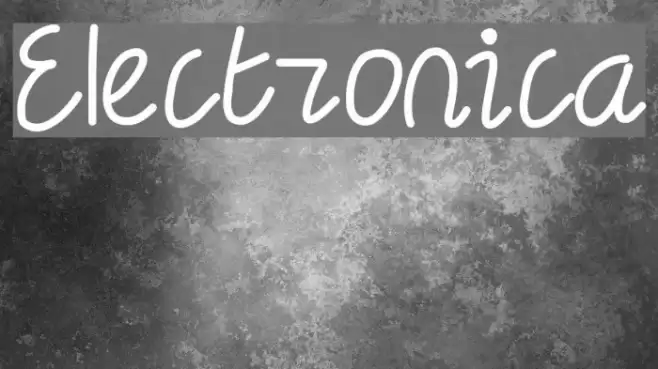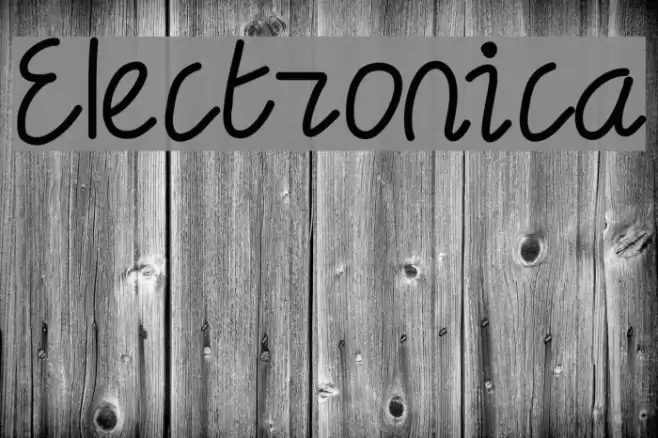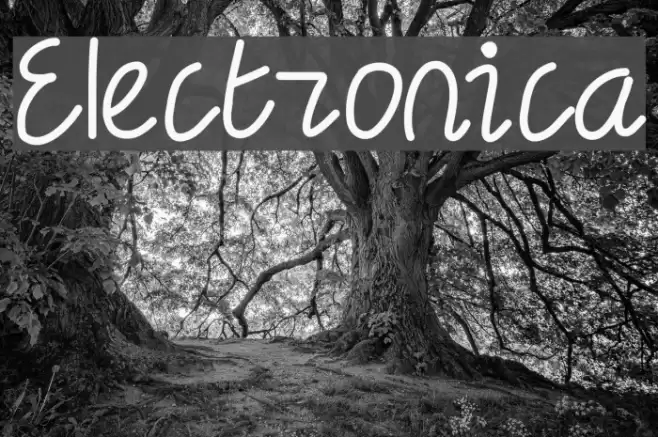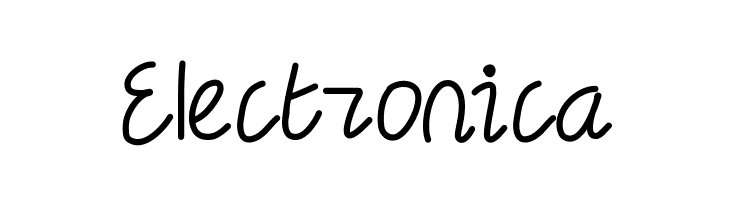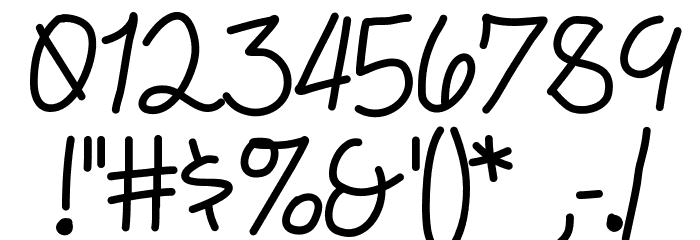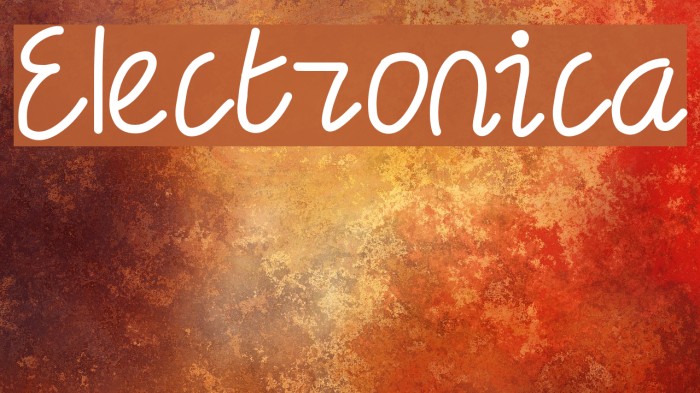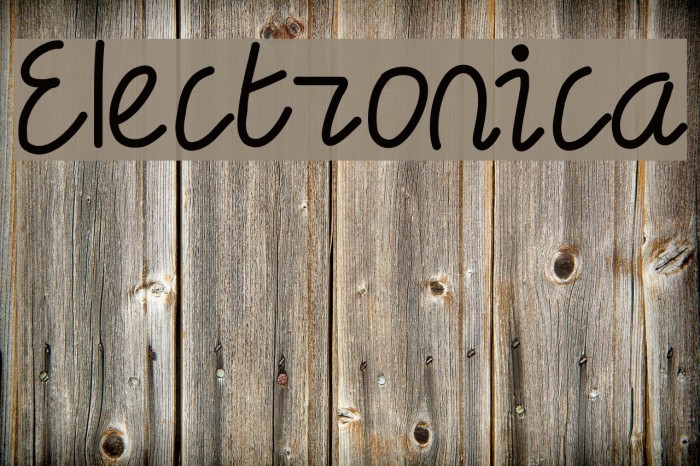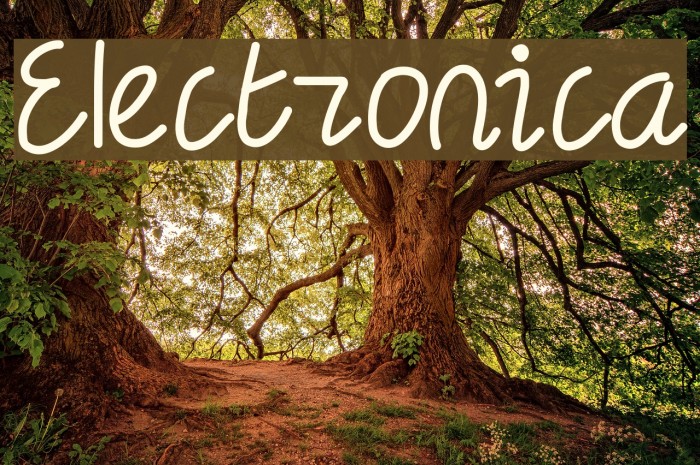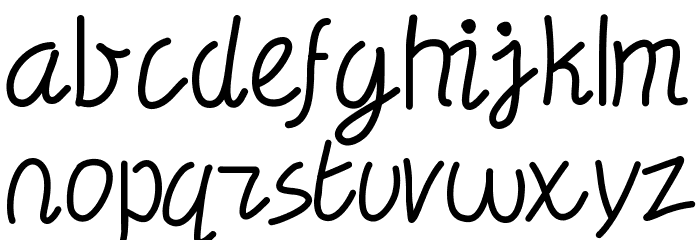
Electronica Font
Electronica Description
This font features a playful and casual handwritten style, characterized by its fluid and slightly irregular strokes. The uppercase letters are bold and dynamic, with a slight slant that adds a sense of movement. The lowercase letters maintain a consistent flow, enhancing the font's informal and approachable appearance. Numbers and special characters are crafted with the same lively energy, making them suitable for a variety of creative applications. The overall design is cohesive, with a touch of whimsy that makes it ideal for projects requiring a personal and friendly touch.
A playful, handwritten font with fluid strokes and a casual style from Handwritten fonts.
- Proposed Projects: Ideal for greeting cards, invitations, children's books, and playful branding.
- Overall Style: Casual
- Use Case: Headlines, Informal text, Creative projects